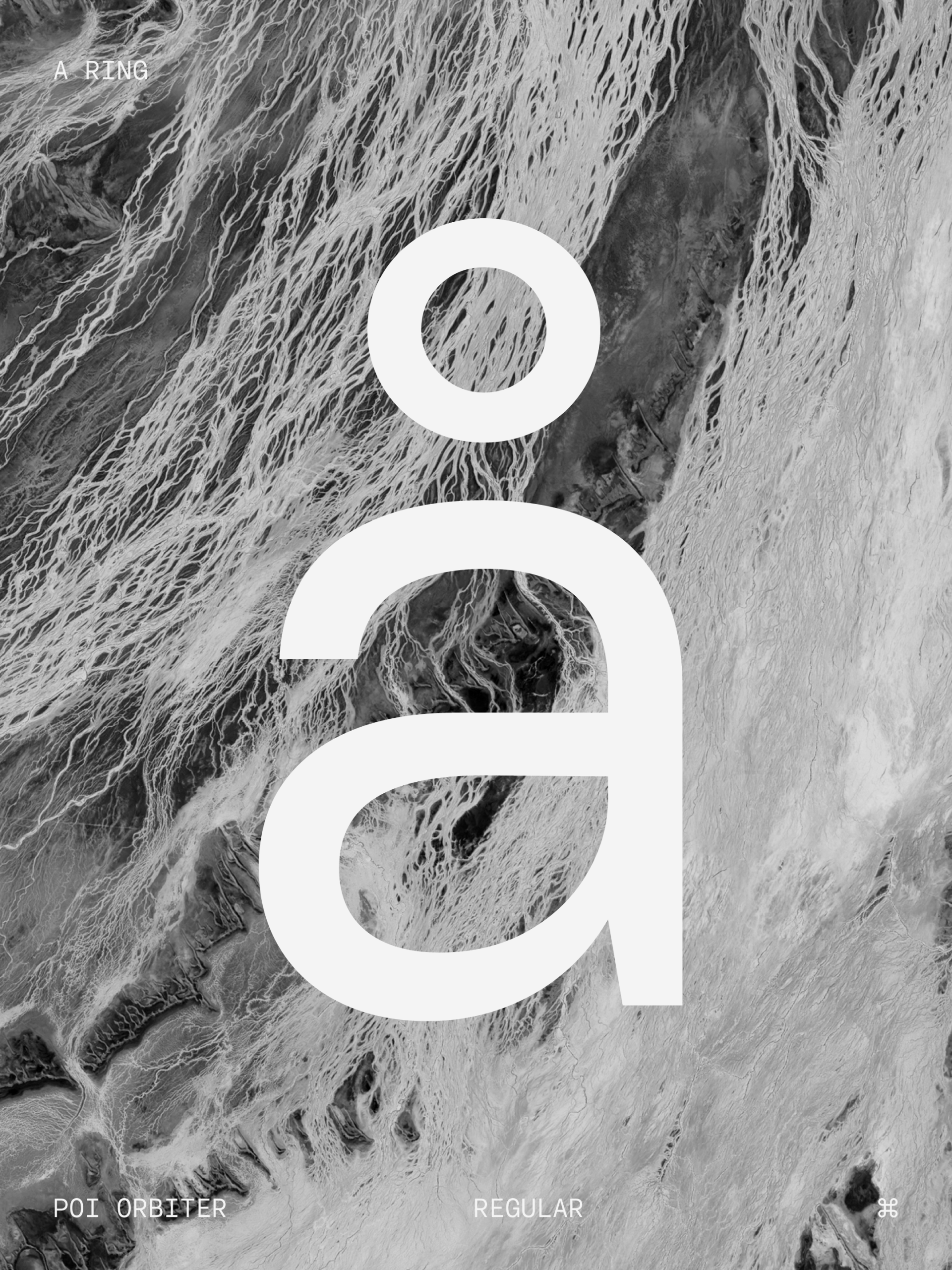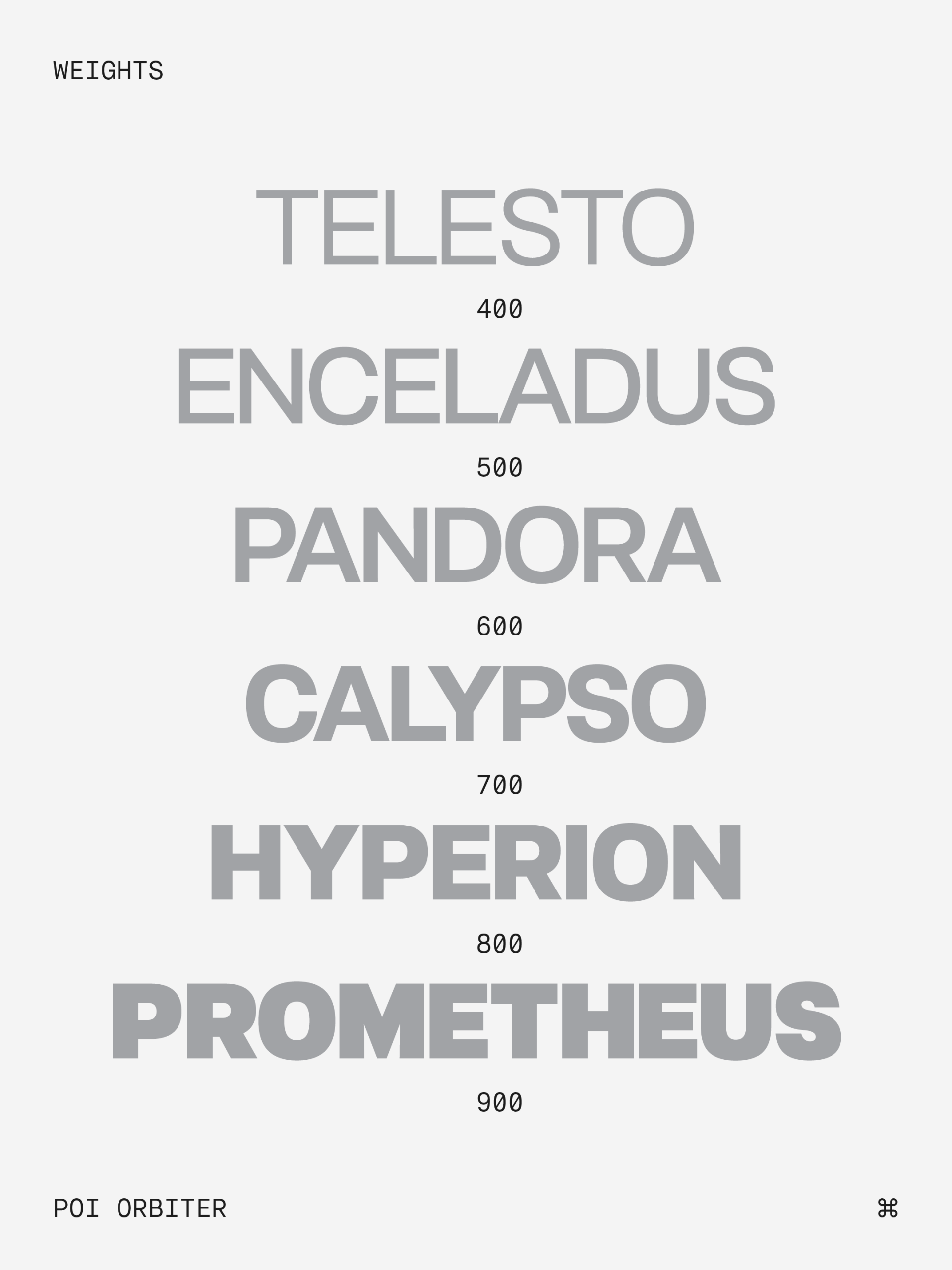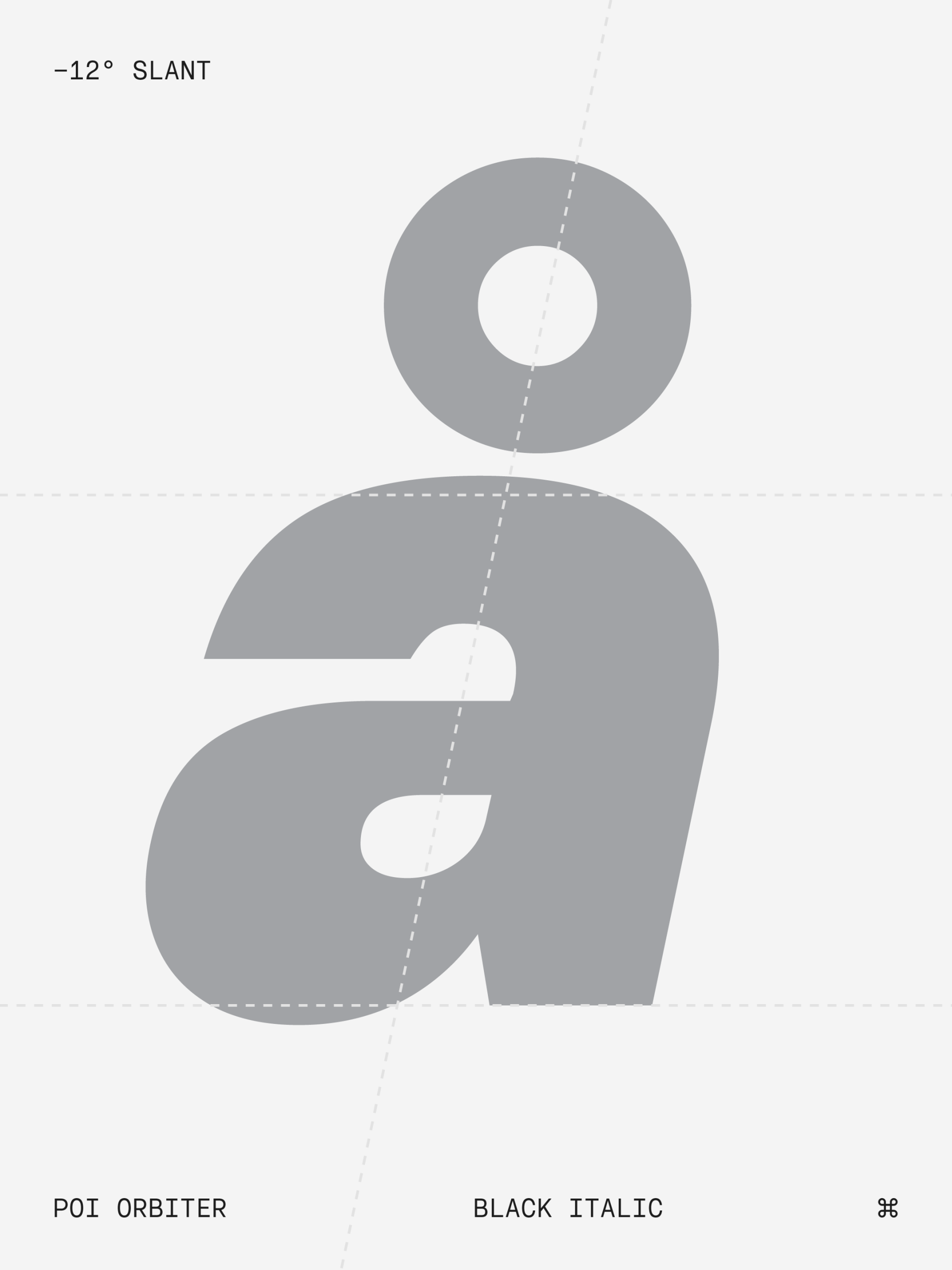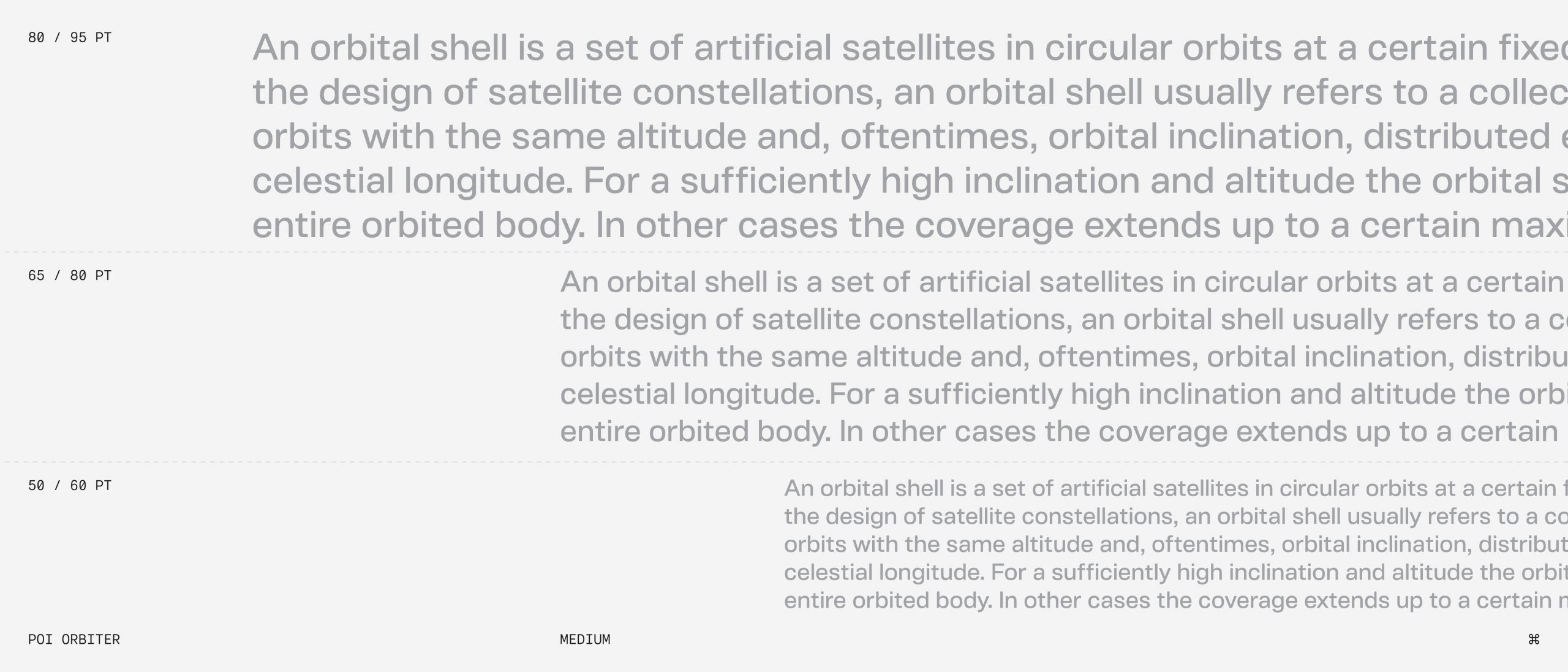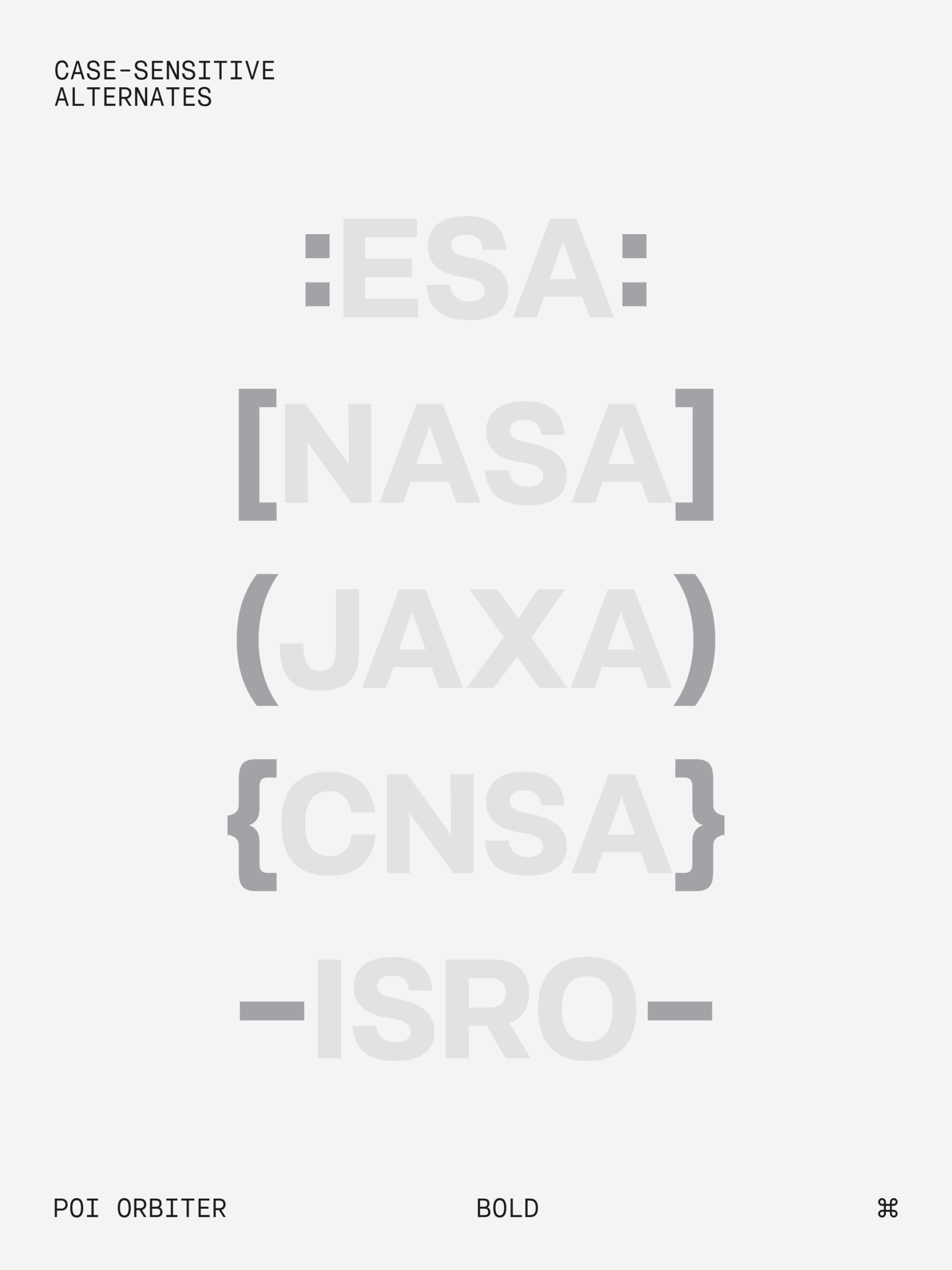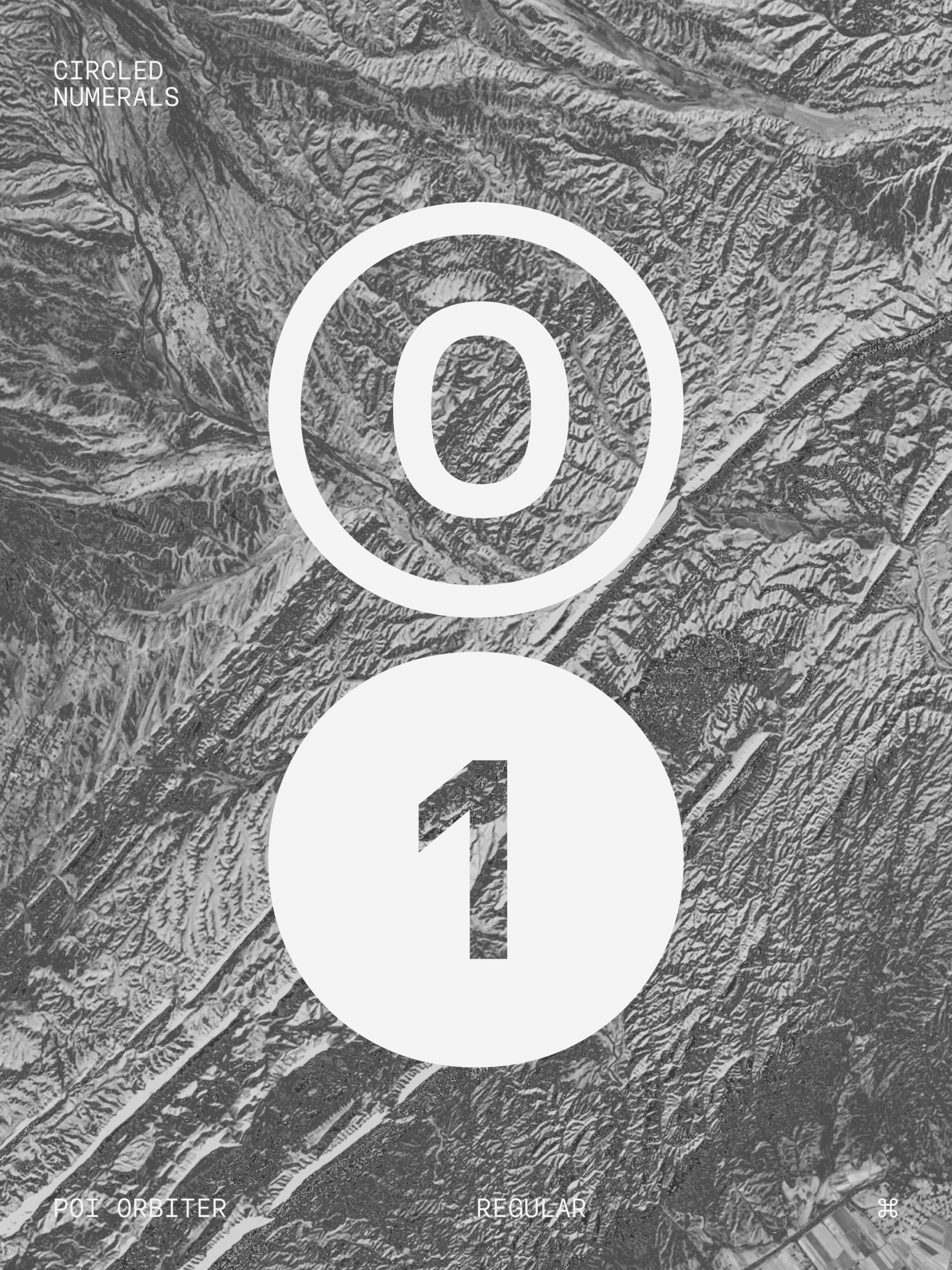
POI Orbiter is a neo-grotesque inspired by space exploration. It balances clarity with character through its subtle squared construction. POI Orbiter comes in 6 weights with matching italics. Staying true to its neo-grotesque inspirations, the italics are drawn as slants of the upright styles. A double-axis variable font is included on all purchases of the full family.